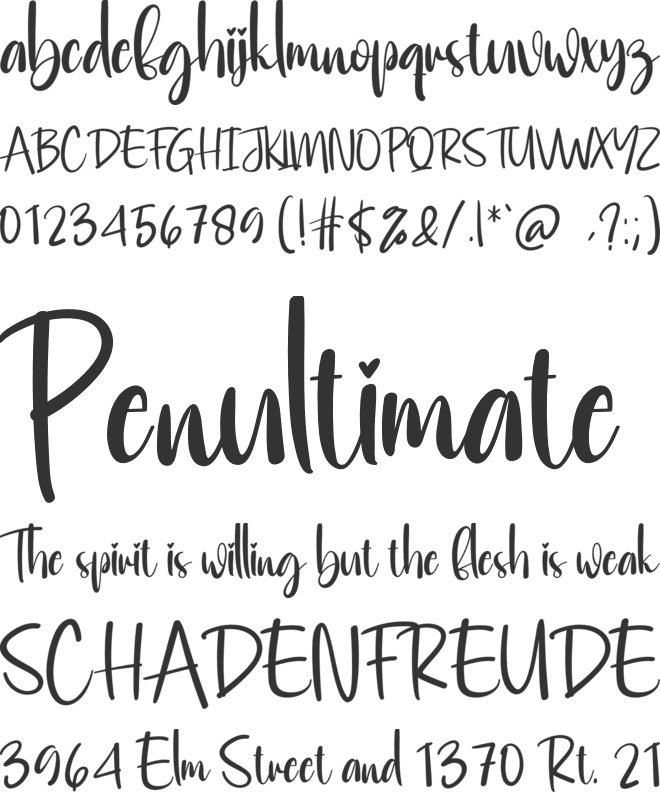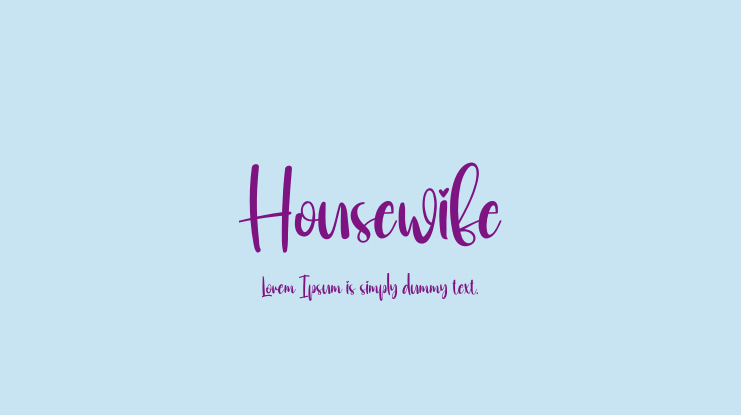
Housewife Font
INTRODUCTION
Discover our unique and innovative collection of products specially designed to enhance your experience. With our exceptional range of products, you are guaranteed an extraordinary and unforgettable journey.
VERSATILITY
Our latest collection of stylish letters is perfect for a variety of uses including wall displays, wedding invitations, social media post logos, advertisements, product packaging, product designs, labels, photography, watermarks, invitations, stationery, and any project that requires tastefully crafted handwriting.